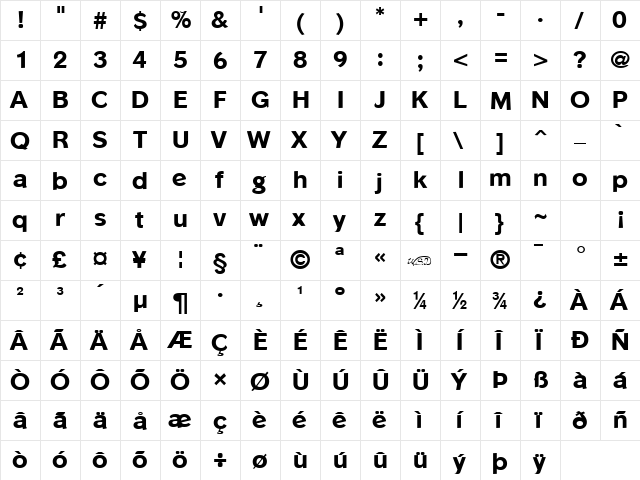
Phinster Extrabold Font Preview
Phinster Extrabold
Design Context for Phinster Typeface
Phinster offers clean, dependable letterforms without strong stylistic allegiance, making it a practical choice for designers who need flexibility. Its bold stroke weight gives it real presence on the page.